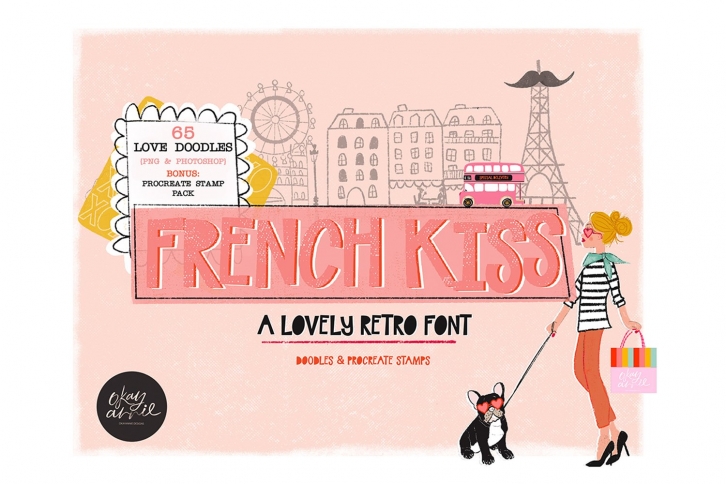
French Kiss - A Retro Font Download
French Kiss is a trendy and unique font with an authentic style. It was designed by OkayAnnie Designs and it's a great choice for creative people who need such a font. It was released on February 9, 2021 and the file size is 20.47 MB. French Kiss will add an organic vibe to any design idea!